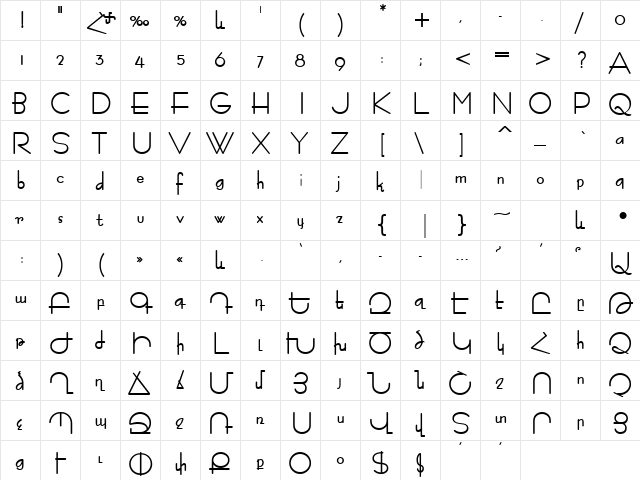
ArTarumianBarak Regular Font Preview
ArTarumianBarak Regular
Design Context for ArTarumianBarak Typeface
ArTarumianBarak takes a measured approach to typography — its balanced proportions and neutral character make it a reliable workhorse for both digital and print work.